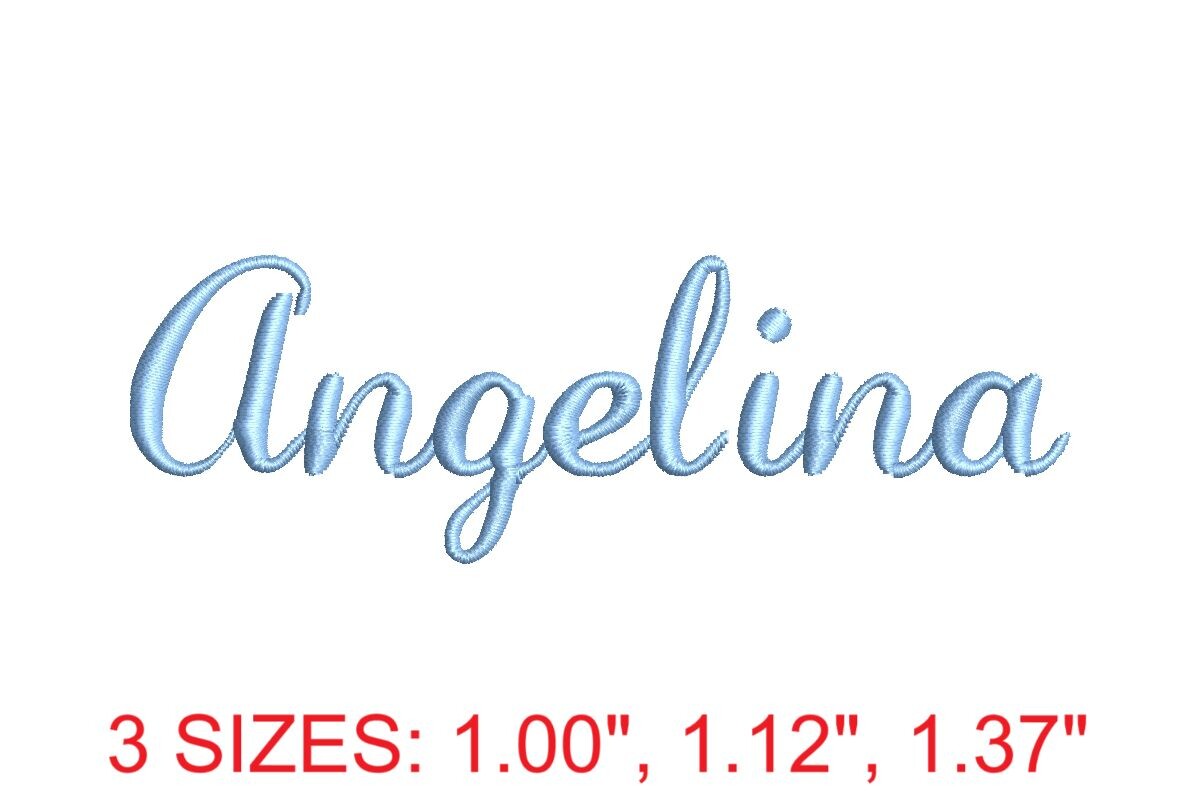
Angelina Embroidery Font
Introducing the Angelina Embroidery Font: Elevate your embroidery projects with this exquisite, script-style font. Crafted to perfection, this font adds a touch of elegance and sophistication to your creations. With Angelina, you’ll enjoy endless creative possibilities. Whether you’re personalizing garments, monogramming gifts, or adding a unique flair to home decor, this font’s graceful curves and ornate details will impress. Please note: The sizes and stitches information shown below is for “A” and “a” in each size. This is provided as a summary of what is available in this download file. For the full dimension details of the 156 letters in this set, click on the More Sewing Info (PDF) button on this page.